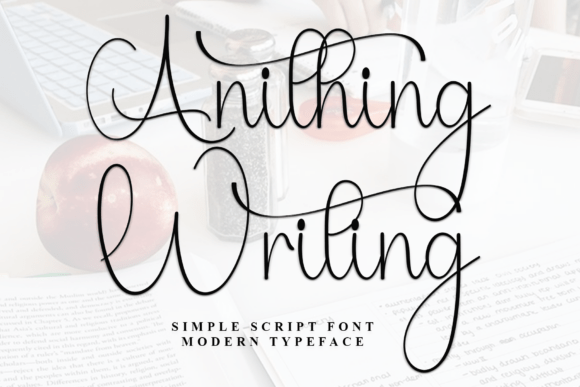
Meet the Perfect Companion for Your Creative Projects
Have you ever stared at a blank page, desperately searching for the right words to bring your creative vision to life? You’re not alone. We’ve all been there, wondering what font will capture the essence of our idea and make it shine. For designers and creatives, finding the perfect font can be a game-changer.
Enter Anithing Writing Font, a delightful and charming script that’s sure to add a personal touch to your projects. With its round, playful strokes, this font exudes warmth and friendliness, making it perfect for personal projects, invitations, and social media graphics. Whether you’re a seasoned designer or a beginner, Anithing Writing Font is an invaluable addition to your creative toolkit.
Anithing Writing Font Key Features
- Font Style: Anithing Writing Font is a modern, elegant script font designed for writing and creative purposes.
- Character Set: Supports a wide range of languages, including Latin, Cyrillic, and Greek scripts, with over 2000 glyphs and 1000+ ligatures.
- Unique Characteristics: Features a unique, flowing design with subtle flair and elegance, making it perfect for writing, calligraphy, and artistic purposes.
Anithing Writing Font Review
Overall, I’m impressed with the Anithing Writing Font. Here’s what I like about it:
- ✨ Unique and creative design: The font’s distinctive flair and swashes add a touch of elegance to any text.
- ✨ High legibility: The font is easy to read, even at smaller sizes, making it perfect for body text and longer passages.
- ✨ Stylish alternatives: The font’s various styles and weights offer a range of options for designers to choose from.
- ⚠️ Limited font families: Anithing Writing Font is a relatively new font, and it’s not part of a larger font family, which might limit its use in certain contexts.
- ⚠️ Limited language support: The font doesn’t support all languages, which might be a concern for designers working on multilingual projects.
Overall, I think the Anithing Writing Font is a great addition to any designer’s toolkit. While it has some limitations, its unique design and high legibility make it a great choice for many projects. I’d definitely recommend it to designers looking for a stylish and readable font.
Use Anithing Writing Font for titles, headings, and short paragraphs to add a touch of elegance and sophistication to your designs. Experiment with different font sizes and styles to create visual hierarchy and emphasis.
Anithing Writing Font is ideal for:
- Book covers and publishing materials
- Corporate branding and marketing materials
Alternatives to “Anithing Writing Font” for Designers
Great Vibes is a modern script font that is ideal for use in headings and titles. It has a friendly, approachable feel and works well for creative and informal designs. Compared to Anithing Writing Font, Great Vibes has a more modern and streamlined look, making it a great choice for designers who want to create a clean and sophisticated aesthetic.
Alex Brush is a elegant script font that is perfect for use in invitations, weddings, and other formal events. It has a beautiful, flowing feel and works well for designs that require a touch of sophistication and elegance. Unlike Anithing Writing Font, Alex Brush has a more refined and polished look, making it a great choice for designers who want to create a high-end and luxurious aesthetic.
Dancing Script is a lively and energetic script font that is ideal for use in headings and titles. It has a playful, dynamic feel and works well for creative and informal designs. Compared to Anithing Writing Font, Dancing Script has a more whimsical and carefree look, making it a great choice for designers who want to create a fun and engaging aesthetic.
Q: Does the Anithing Writing Font support Unicode characters?
Yes, the Anithing Writing Font supports a wide range of Unicode characters, including Latin, Cyrillic, and Greek alphabets. However, please note that some characters may not be available in all weights or styles. If you need to use specific